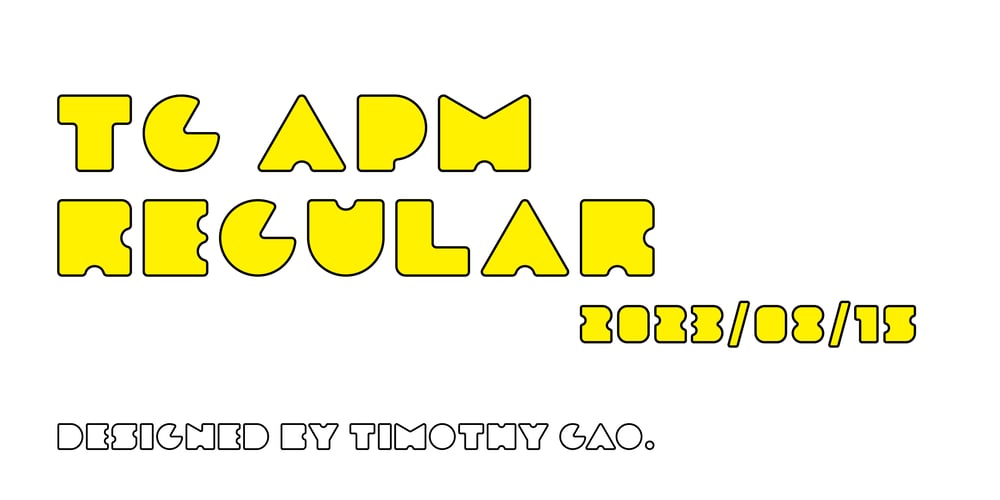
TG APM Font Family was designed by Weishan Gao and published by Weishan Gao. TG APM contains 1 styles and family package options. The font “TG APM” was designed by me for a boutique coffee shop. This font is used in the coffee shop’s logo and draws inspiration from the sun and the moon. The sun represents daytime, while the moon symbolizes nighttime. The intention is to convey that coffee is available throughout the day, helping you stay awake and composed.